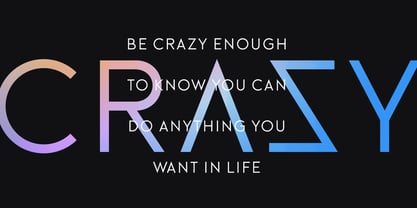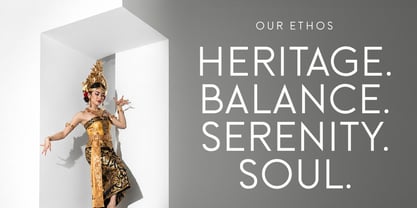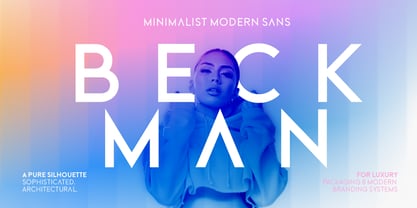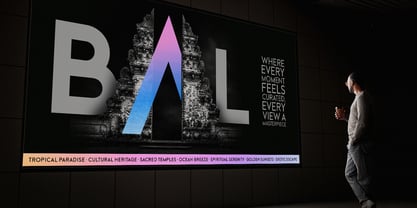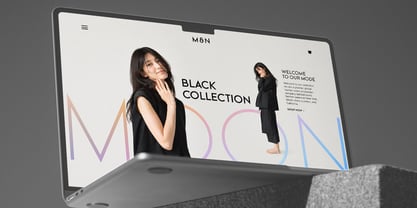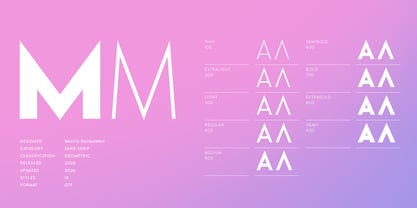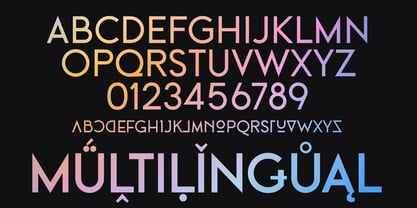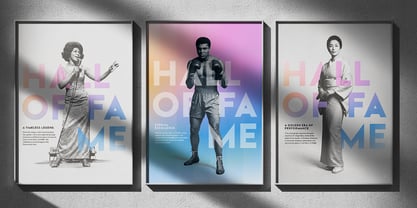
Benn Beckman
by Factory738
Benn Beckman Font Family was designed by Wahyu Rahmawan and published by Factory738. Benn Beckman contains 9 styles family package options.
Beckman is a sleek, minimalist sans-serif font family that blends geometric and clean design elements for a contemporary look. With nine font variations, it offers modern, polished capital letters that enhance versatility. Beckman is the perfect choice to elevate your headlines, branding, logos, posters, magazines, and more.
• 9 Styles (Thin, ExtraLight, Light, Regular, Medium, SemiBold, Bold, ExtraBold, Heavy)